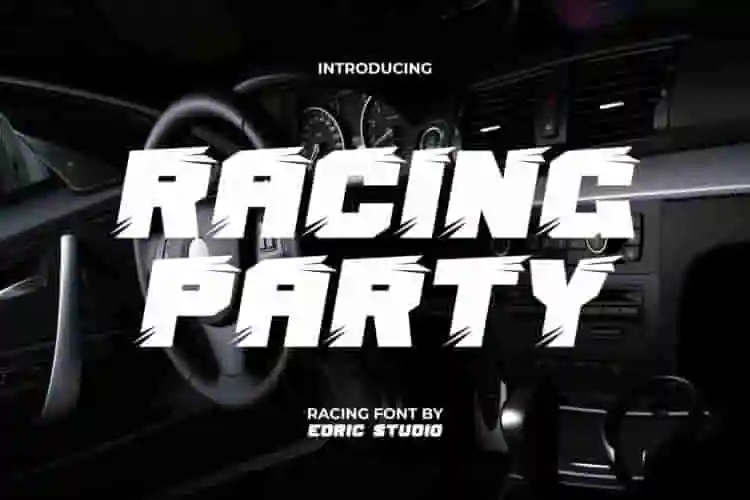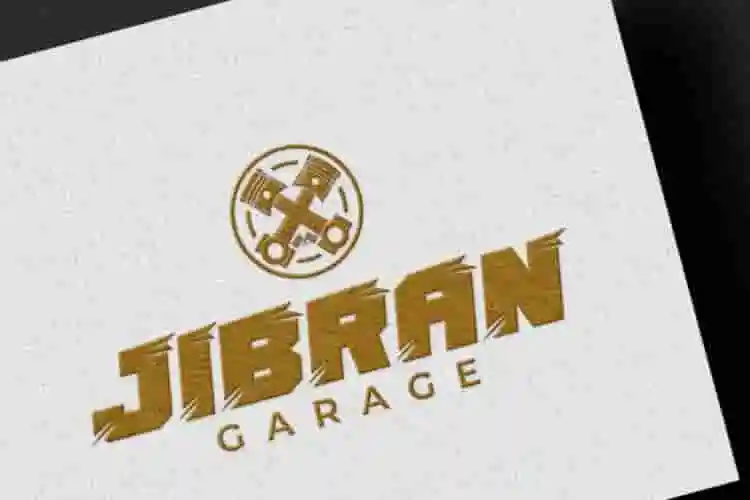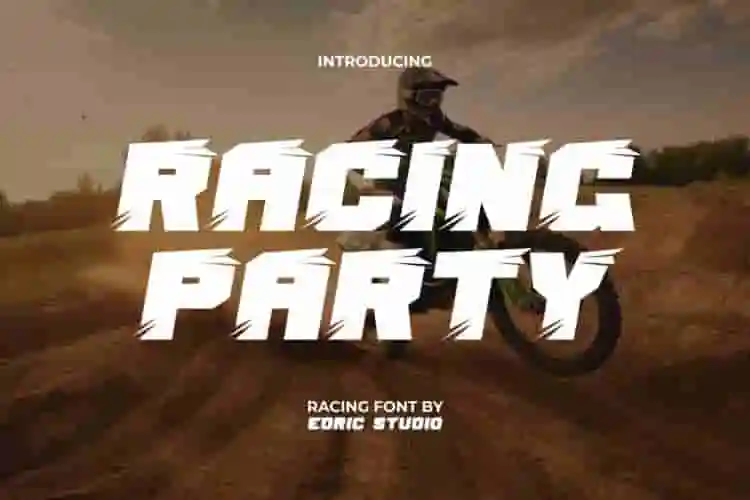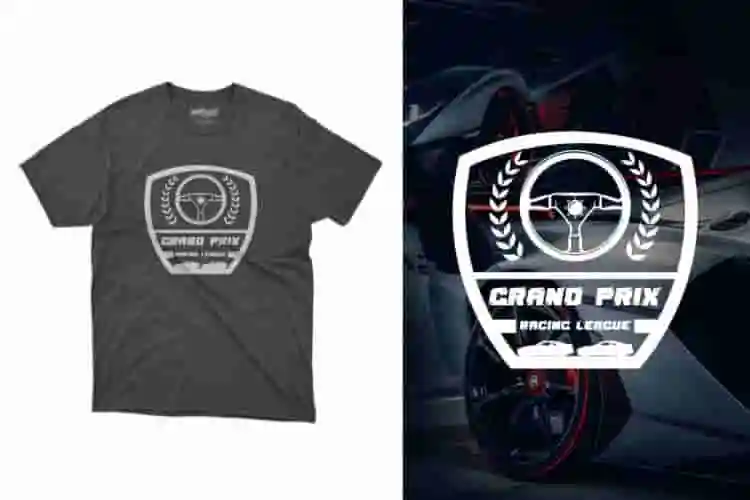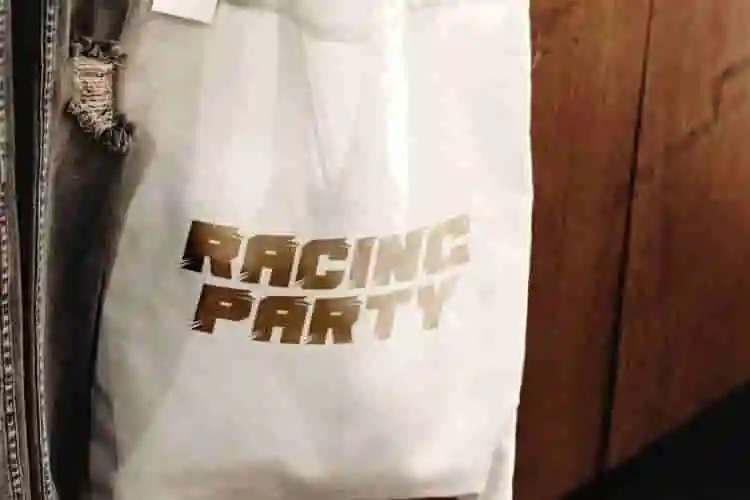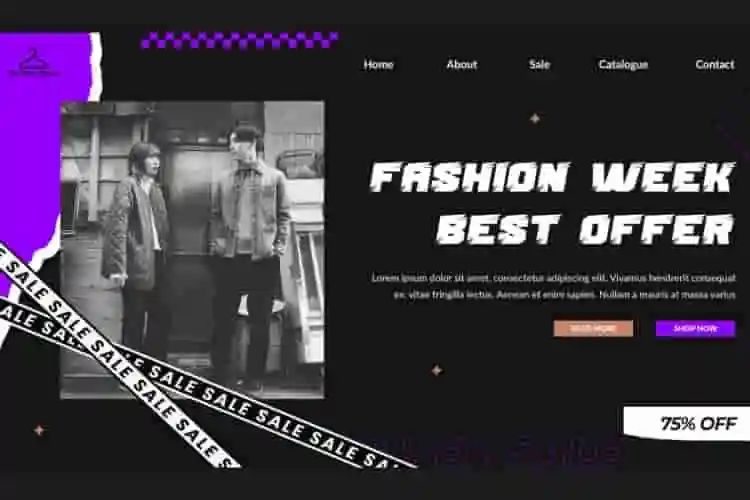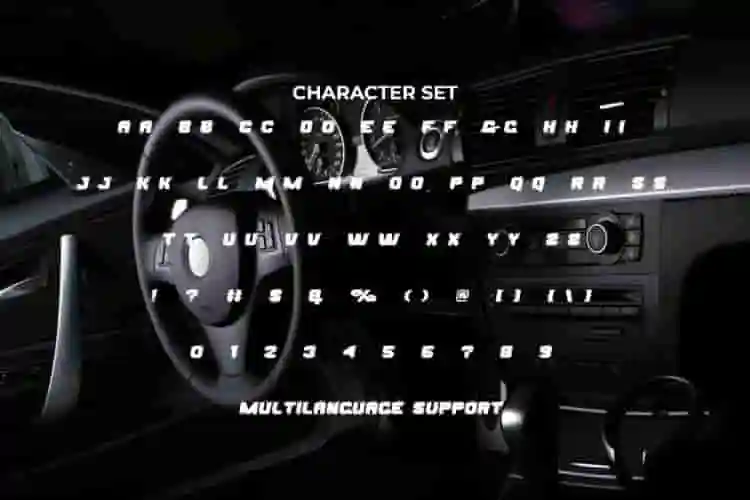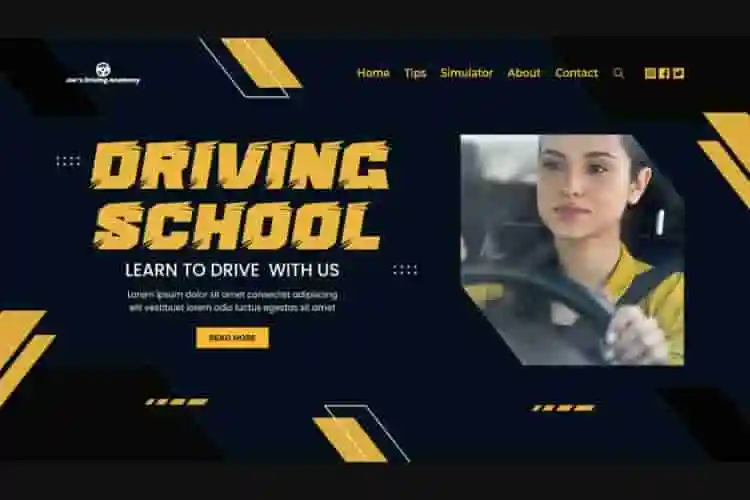
Racing Party Font is a modern speedy racing display font that is stunning with its striking boldness and is very trendy. The lines on the edge of each letter make it look very cool and have its own style. Judging from the heavy proportions of the letters, your design will stand out and be seen giving the font a strong rhythm. This would be great for banner, brand logo, cards design, headers, headline, labels, magazine covers, poster, quotes, screen print, stationery, sticker, website, etc.
Racing Party Font includes a complete set of ALL CAPS for upper and lower case letters, Numbers, Punctuation and Symbols. Racing Party is designed with a modern aesthetic that blends simplicity and sophistication seamlessly. It gives a sturdy look that is structured and confident. Perfect for things that focus on the tech field, or also like accessories and merchandise, automotive, clothing brand, fitness centers, games, graphic design, gym, outdoor activity gear, racing game, sports event, sportswear brands, wrestling sport, and more. Add this font to your favorite creative ideas and watch how it works!
Rev up your designs with Racing Party Display Font — a bold, playful display font that combines the thrill of the racetrack with the joy of celebration! Designed to bring energy, motion, and excitement to your projects, this font is perfect for both high-speed themes and party-ready vibes.
Whether you’re creating birthday invitations, racing-themed posters, game titles, kids’ t-shirts, or fun social media graphics, Racing Party Display Font delivers high-octane style with a cheerful twist. Its thick strokes, dynamic angles, and cartoon-style edges make every word feel like it’s crossing the finish line with flair.
This display font is perfect for events that demand attention — from motorsport flyers to party banners, carnival signs, and classroom decor. It’s fast, fun, and full of personality.